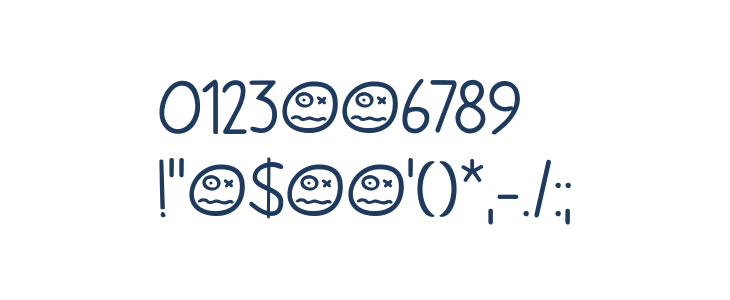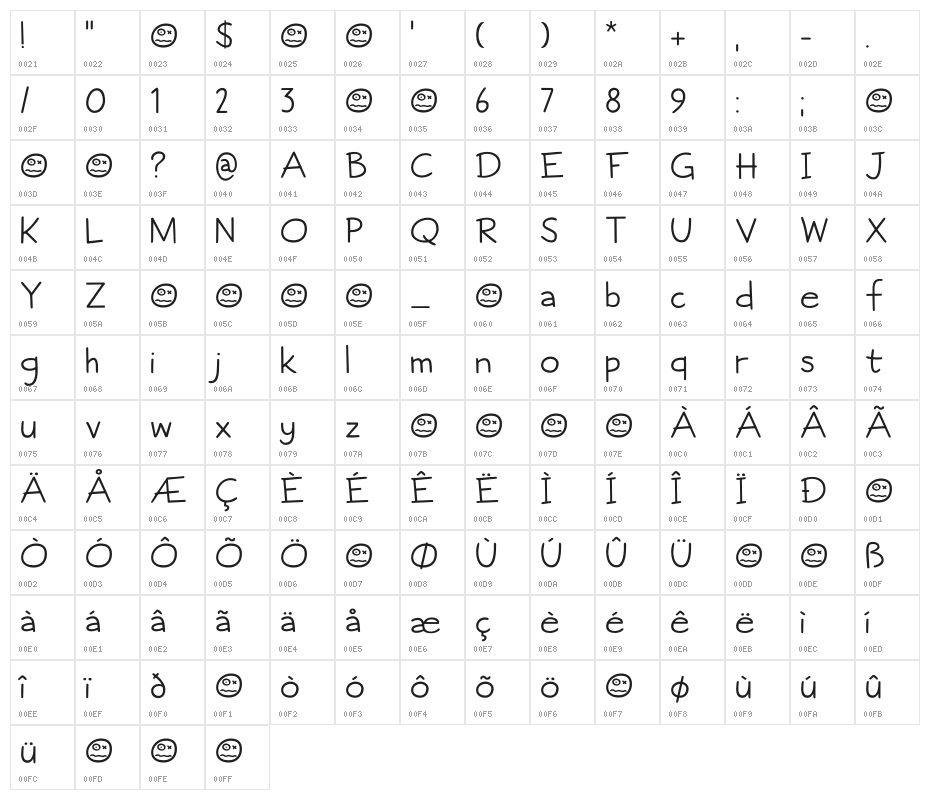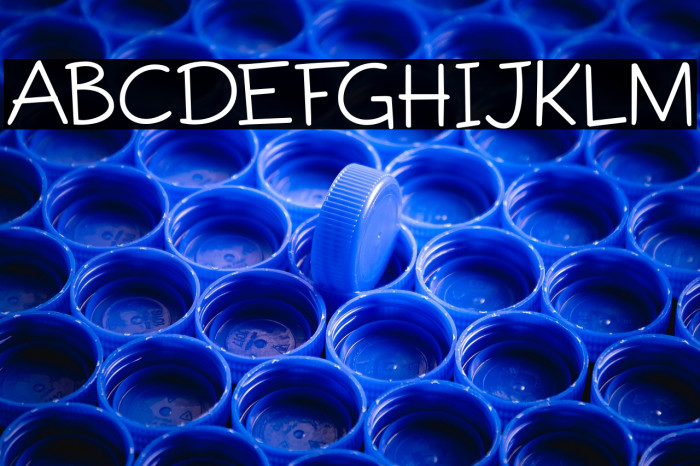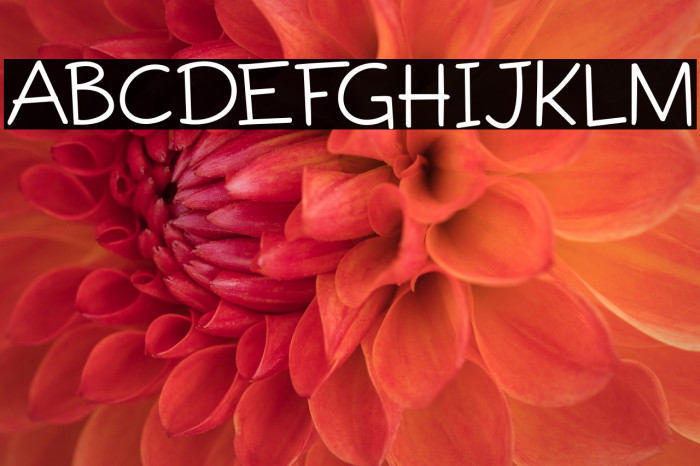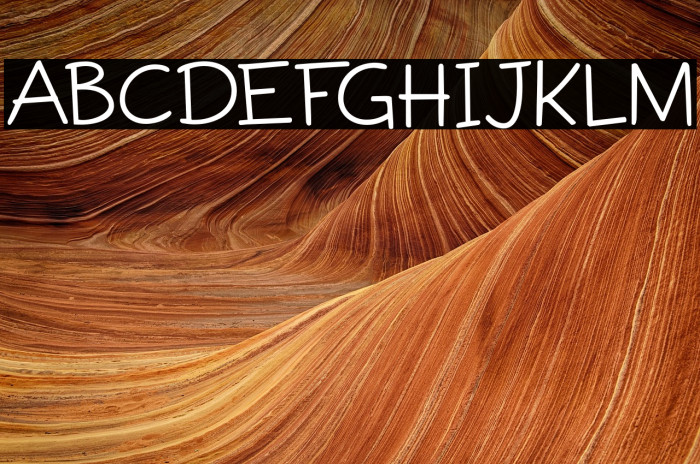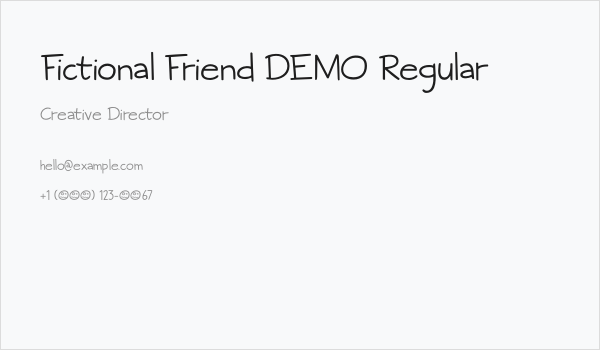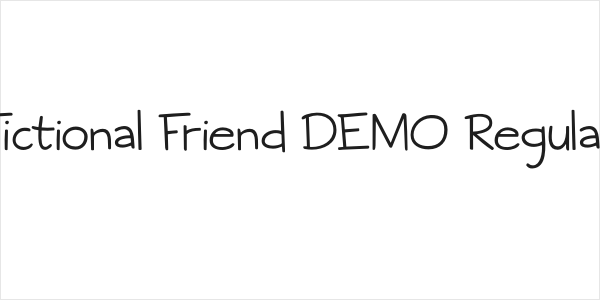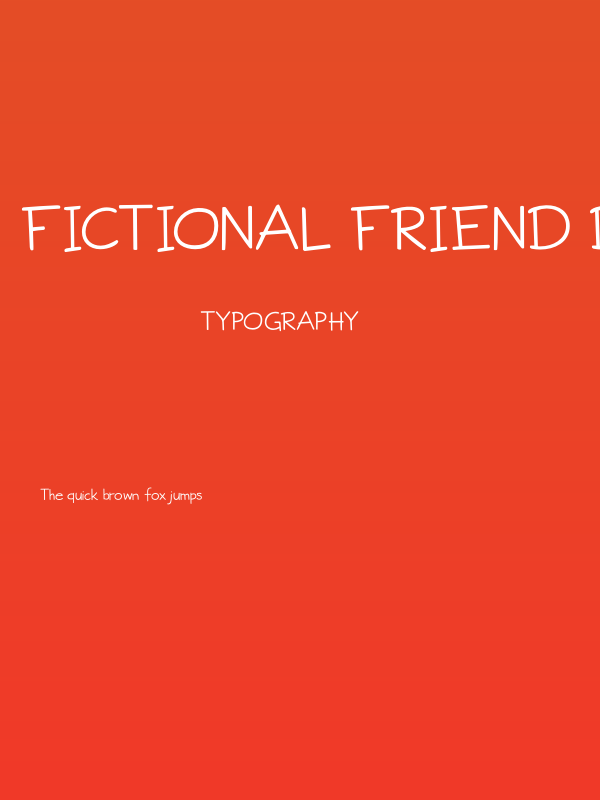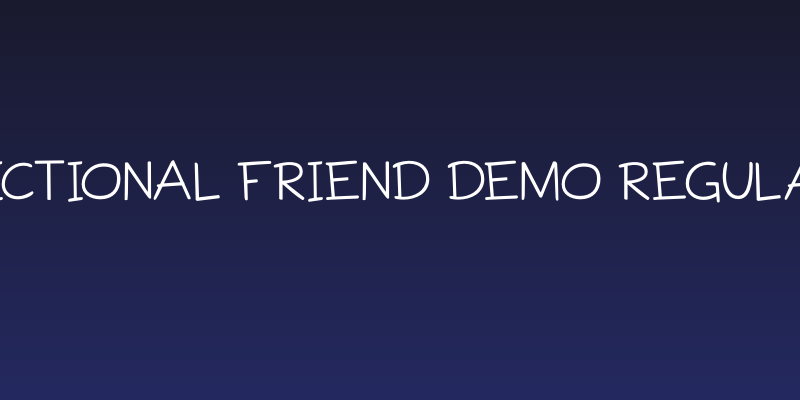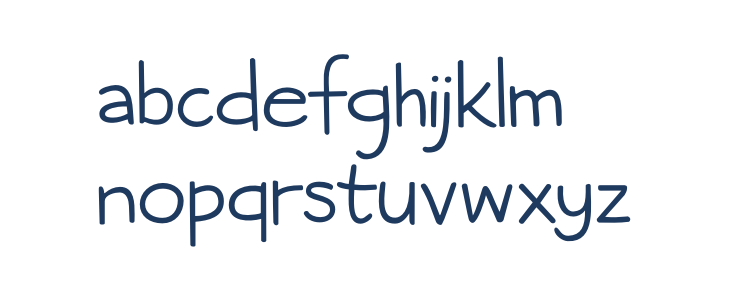
Fictional Friend DEMO Regular Font
Fictional Friend DEMO Regular Description
This playful and whimsical font features a hand-drawn style with irregular, slightly wavy lines that give it a friendly and approachable appearance. The uppercase and lowercase letters maintain a consistent stroke width, contributing to a cohesive look. The numerals and special characters are equally quirky, with some characters incorporating unique smiley face designs that add a touch of humor. The overall design is casual and informal, making it suitable for projects that aim to convey a sense of fun and creativity. The font's unique personality is evident in its distinctive character shapes, which are both charming and engaging.
| Use Case | Logos, Headlines, Informal Text |
| Proposed Projects | Ideal for children's books, greeting cards, playful branding, and creative posters. |